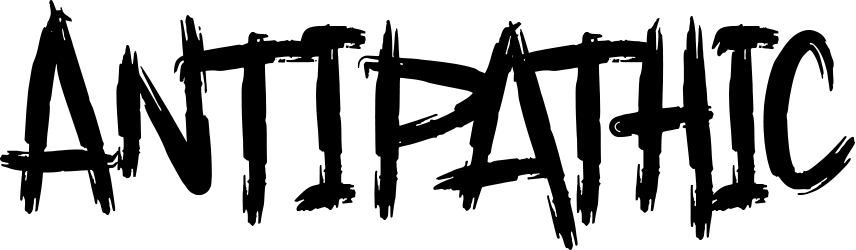
Antipathic Font
Antipathic fonts have a playful and horror style that attracts audiences interested in Halloween themes. In addition, this font does not support lowercase letters, so you can use this font in posters and the title of posters and flyers.
In streetwear, such as denim and t-shirt designs, one of the benefits of using this brush font is to give you the chance to create a particular variety in your products.